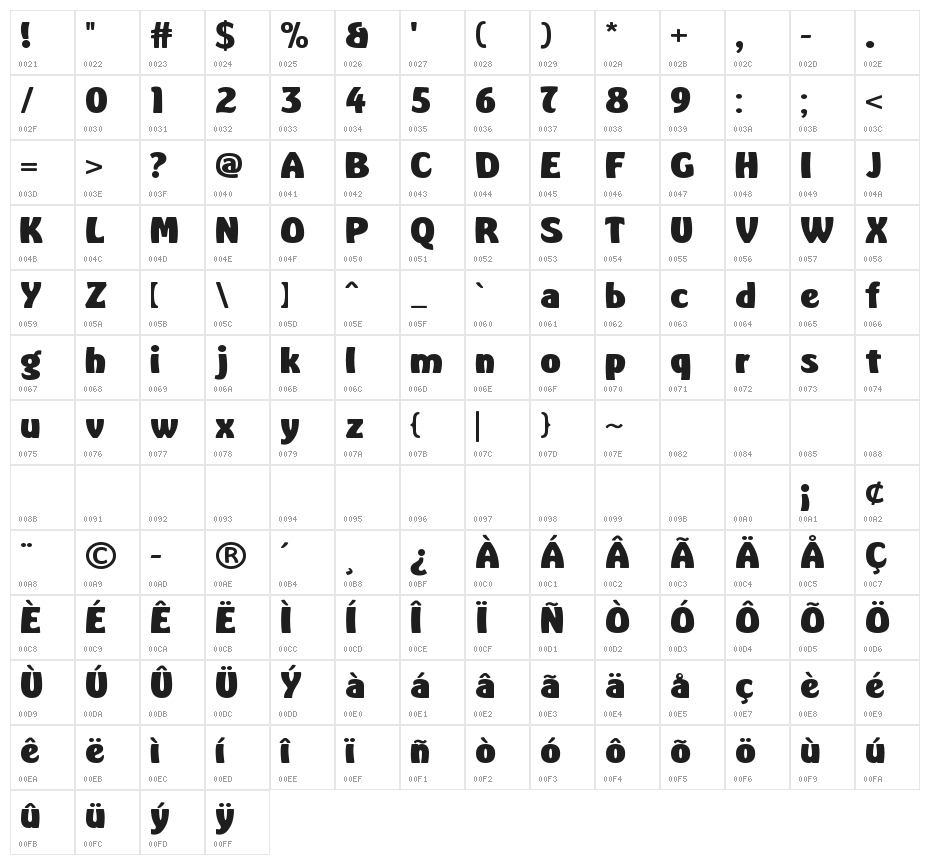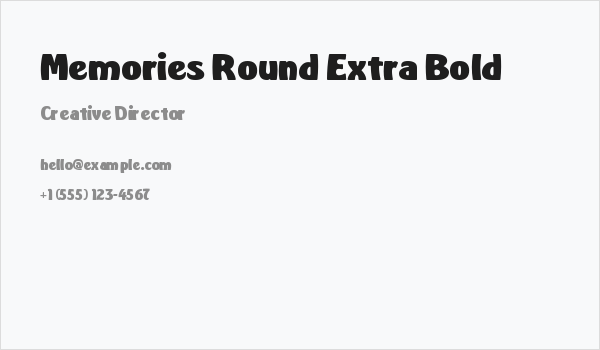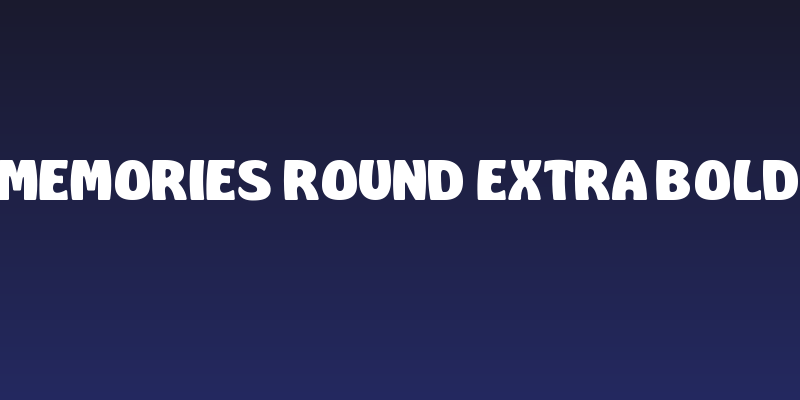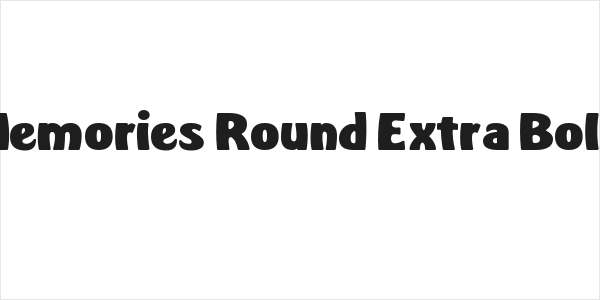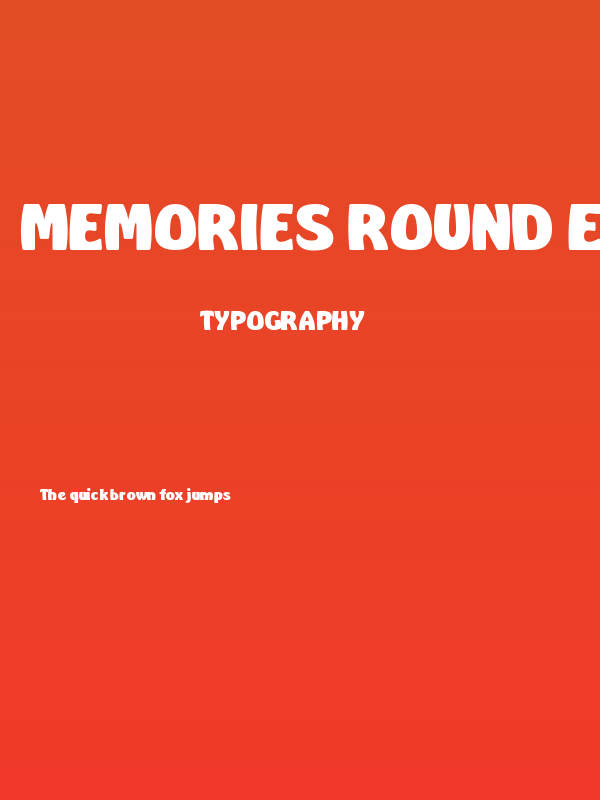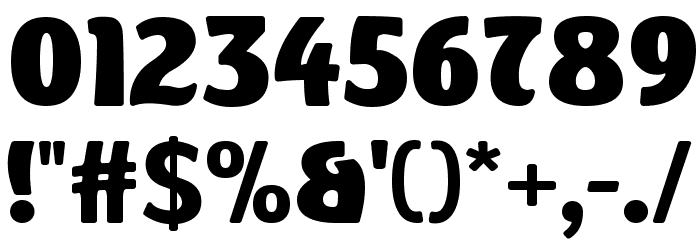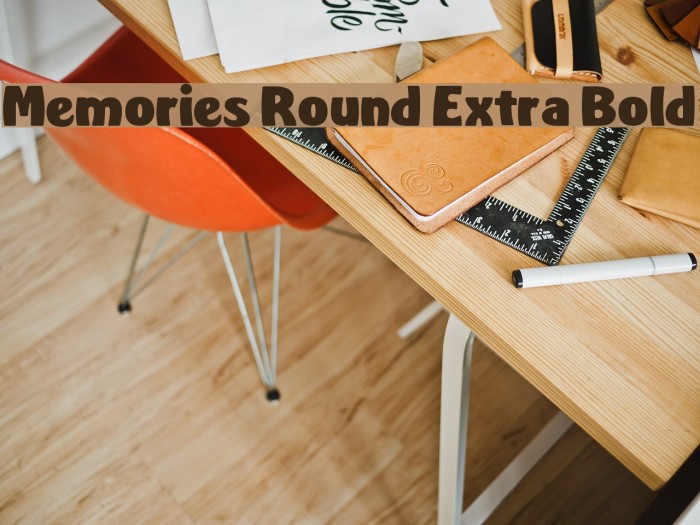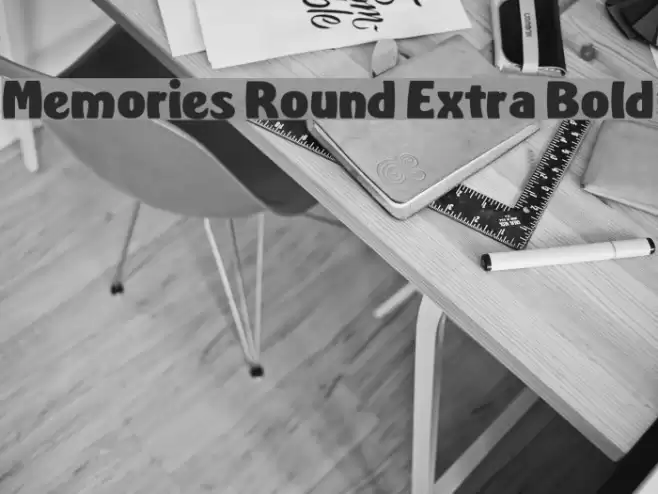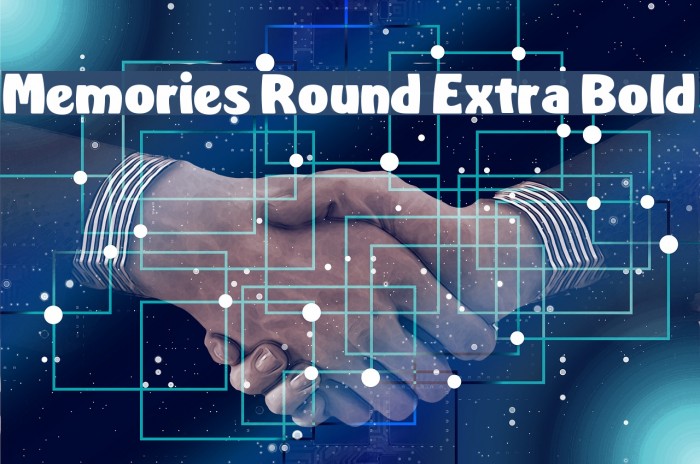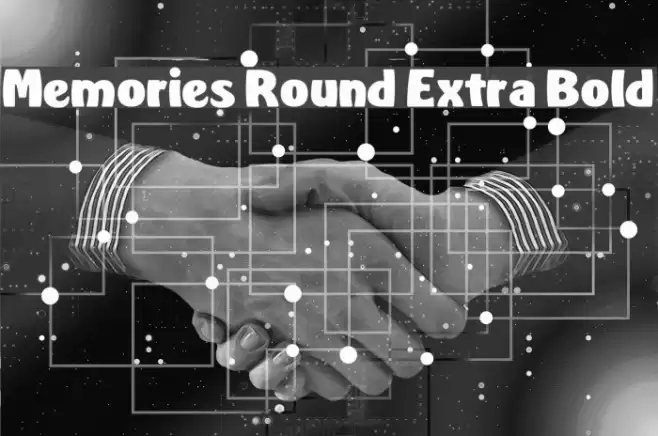
Memories Round Extra Bold Font
Memories Round Extra Bold Description
This font features a playful and bold style with rounded edges, giving it a friendly and approachable appearance. The letters are thick and uniform, providing a strong presence on the page. The uppercase and lowercase characters maintain a consistent weight, enhancing readability. The numbers and special characters share the same rounded and bold characteristics, ensuring a cohesive look across all text elements. This font's design is ideal for capturing attention and conveying a sense of fun and creativity.
| Overall Style | Playful, Fun, Bold |
| Proposed Projects | Ideal for children's books, playful branding, posters, and any project needing a fun and bold typeface. |